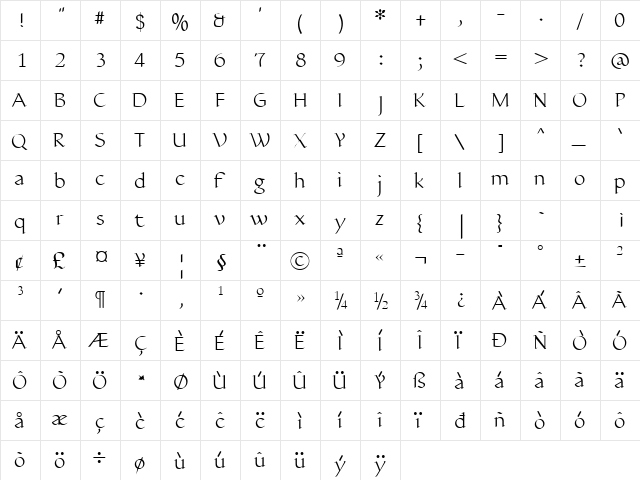
Hermainita Plain
Design Context for Hermainita Typeface
Hermainita takes a measured approach to typography — its balanced proportions and neutral character make it a reliable workhorse for both digital and print work.